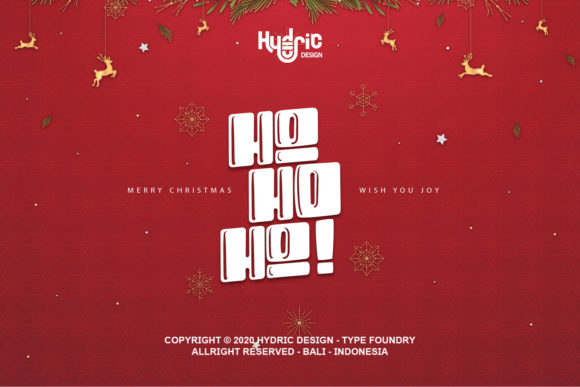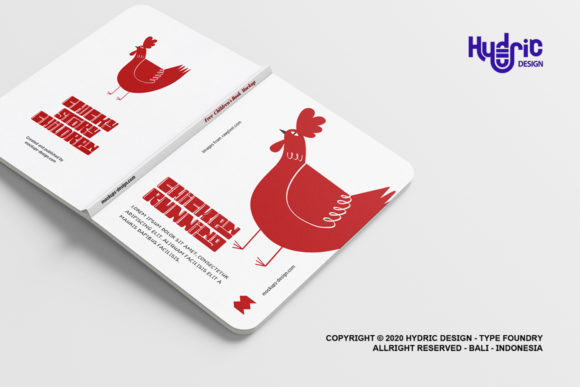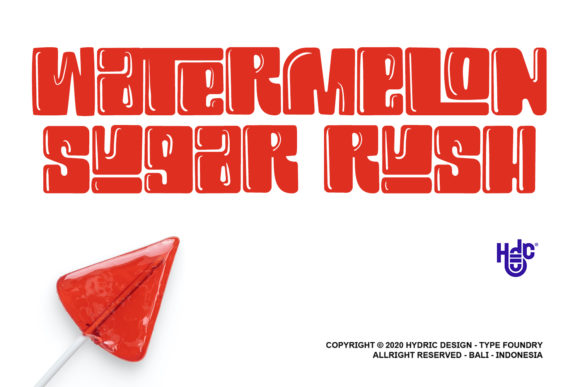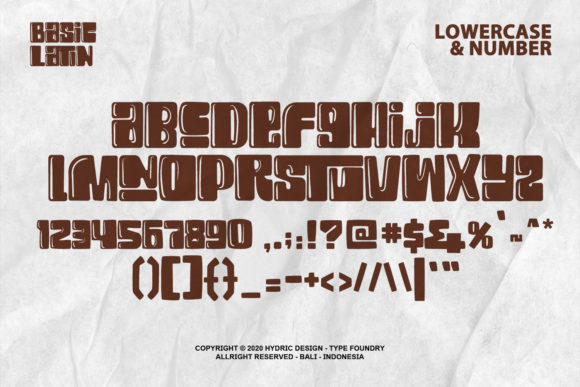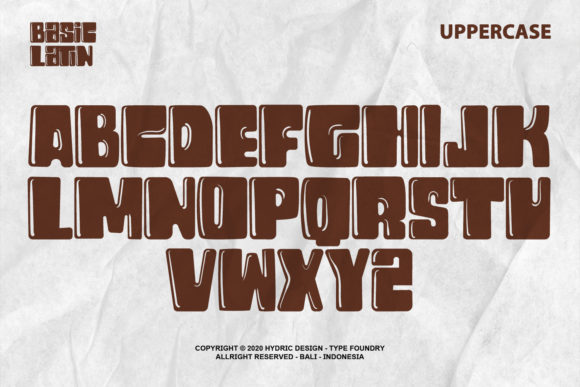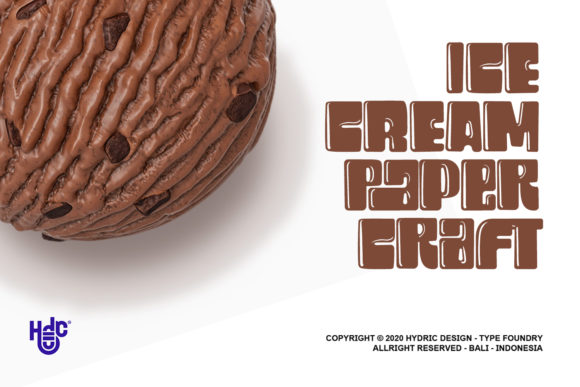
The Drolly Font: A Bold and Playful Addition to Your Design Arsenal
I’ll never forget the time I was working on a project for a children’s birthday party invitation. I had a clear vision of what I wanted to create, but I just couldn’t find the right font to bring it all together. The design needed to be fun, playful, and eye-catching, but everything I tried seemed either too boring or too over-the-top. That’s when I stumbled upon the Drolly font, and let me tell you, it was love at first sight! 💕
A Personal Review of Drolly Font
What I Love About Drolly Font
- ✨ Bold and Cartoon-Like Style: Drolly font is incredibly bold and cartoon-like, making it perfect for designs that need to stand out.
- ✅ Sweet and Chunky Letters: The chunky letters and sweet style of Drolly font make it incredibly fitting for a wide range of designs, from kids’ party invitations to bold advertising materials.
- 🎉 Versatility: The only limit to using Drolly font is your imagination! It can be used for a variety of projects, from digital designs to print materials.
While Drolly font is an amazing addition to any design project, there are a few things to keep in mind:
- 🤔 Legibility at Small Sizes: Due to its bold and chunky style, Drolly font may not be the best choice for body text or small font sizes. It’s best used for headlines or titles where you want to make a statement.
- ⚠️ Overuse: As with any bold font, it’s easy to overuse Drolly font. Make sure to balance it with other fonts and design elements to avoid overwhelming your design.
The Backstory of Drolly Font
Drolly font was designed with the intention of creating a bold and playful font that would bring a smile to people’s faces. The designer, inspired by classic cartoons and children’s books, aimed to create a font that would be perfect for designs that need a touch of whimsy and fun.
| Font Name | Drolly Font |
| Author | Hydric Design |
Q: What is the best way to use Drolly font?
A: The best way to use Drolly font is for headlines, titles, or other design elements where you want to make a statement. It’s perfect for designs that need a bold and playful touch.
Q: Is Drolly font suitable for body text?
A: While Drolly font is a beautiful font, it’s not the best choice for body text. Its bold and chunky style makes it more suitable for headlines and titles.